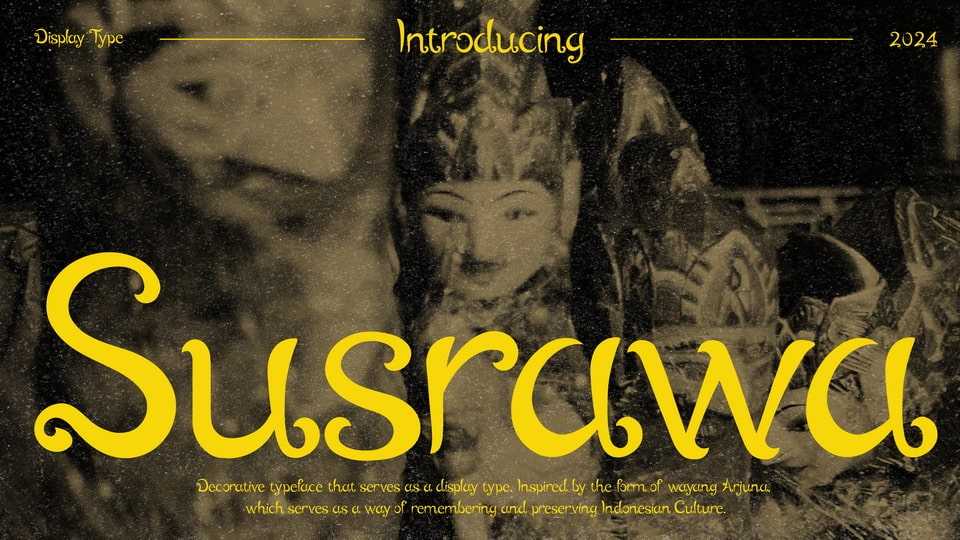
Download Susrawa font, a decorative typeface that serves as a display type. Inspired by the form of wayang Arjuna, that serves as a way of remembering and preserving Indonesian Culture.
Designer: Teddy Kurniawan